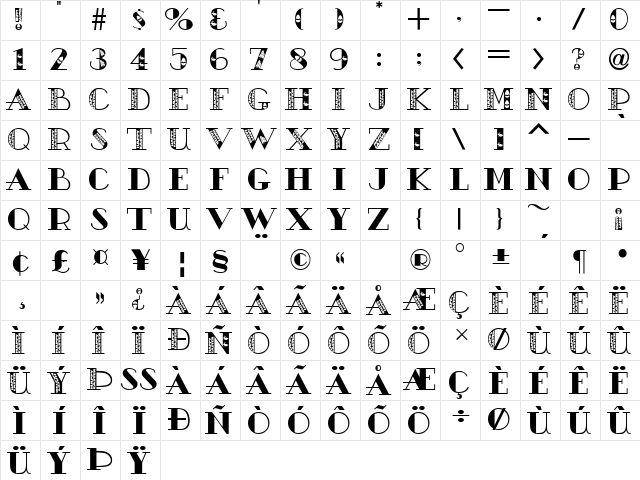
Happy Easter Regular
Design Context for Happy Easter
Happy Easter is a composed and adaptable typeface that performs quietly and consistently across a wide range of design contexts.